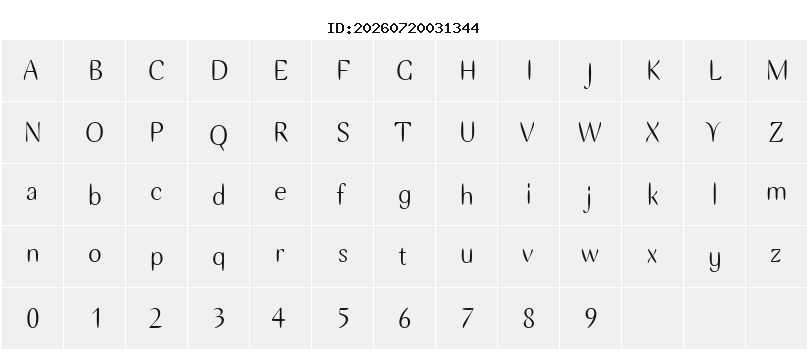
• Font Name: Ellipse ITC
About Ellipse ITC.ttf
Ellipse ITC.ttf is a modern, elegant sans-serif font designed for ultimate readability and visual harmony. Perfect for branding, headlines, web design, and print materials.